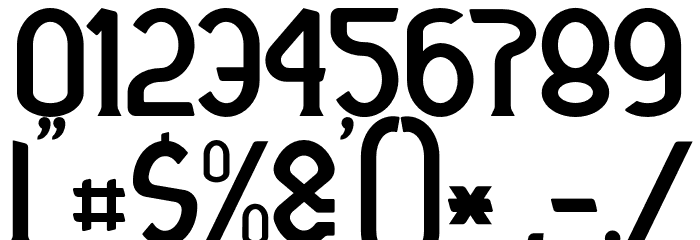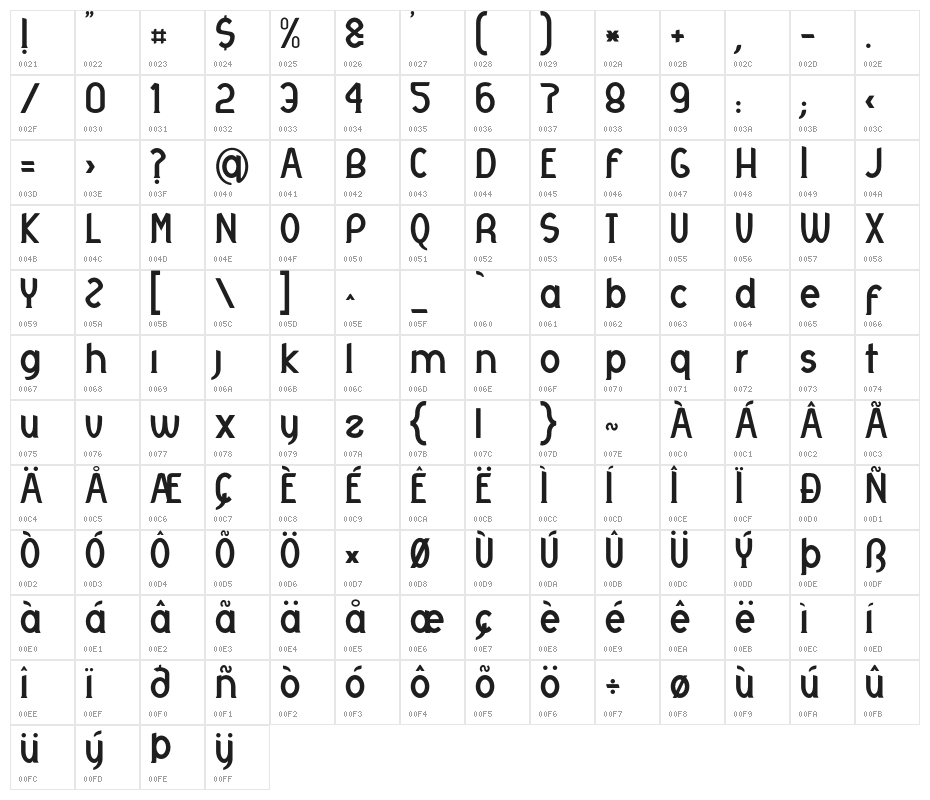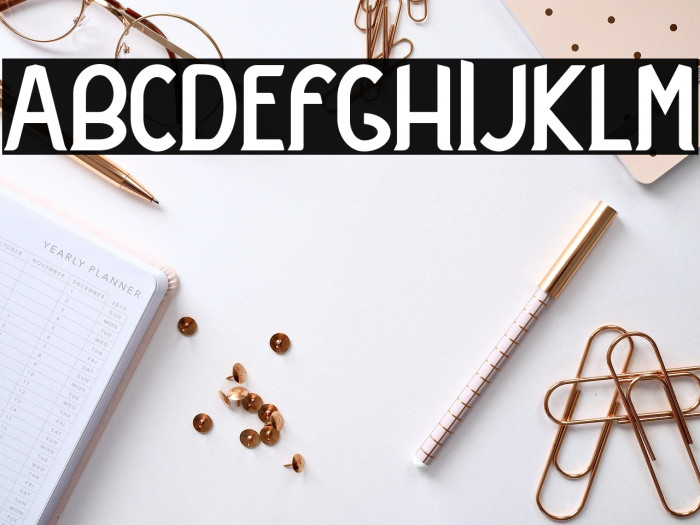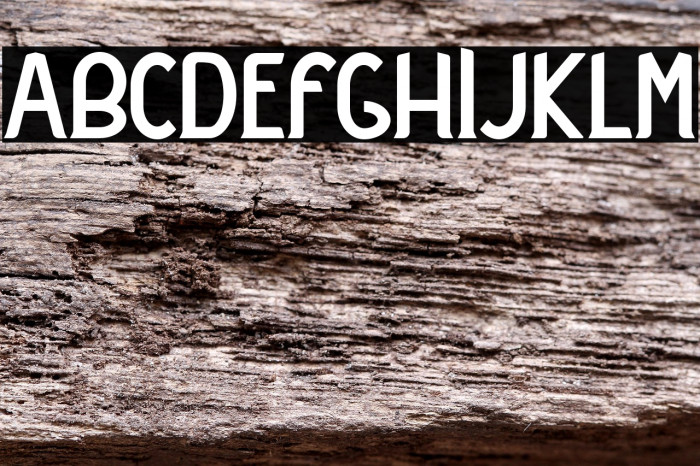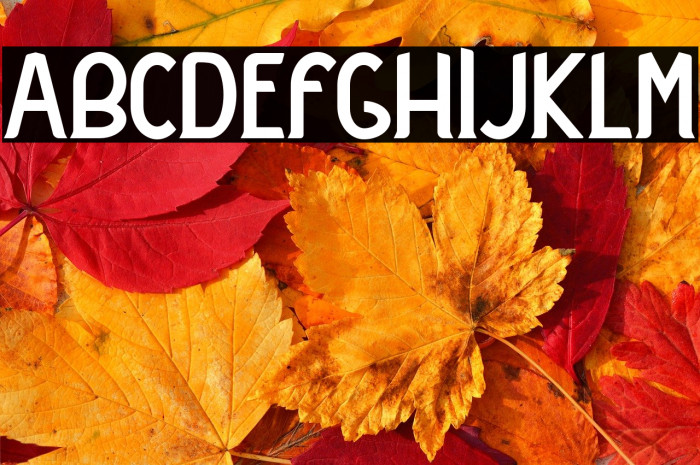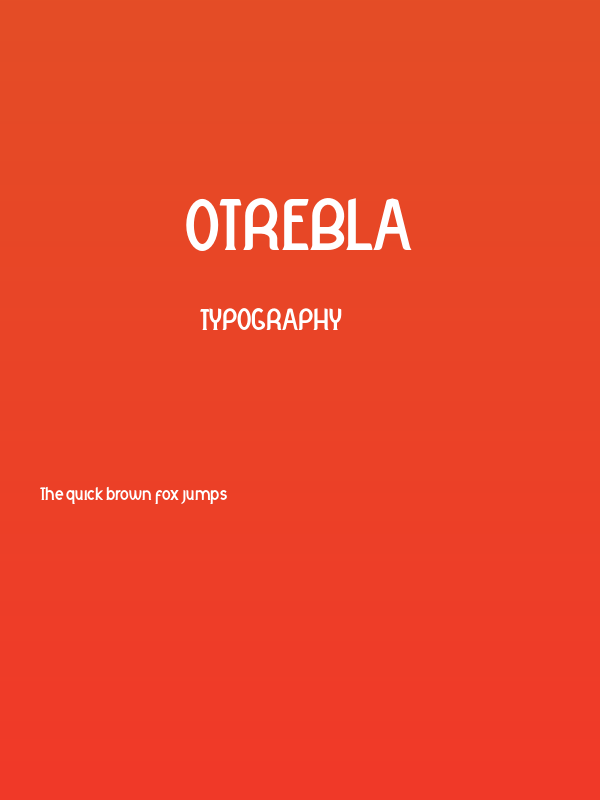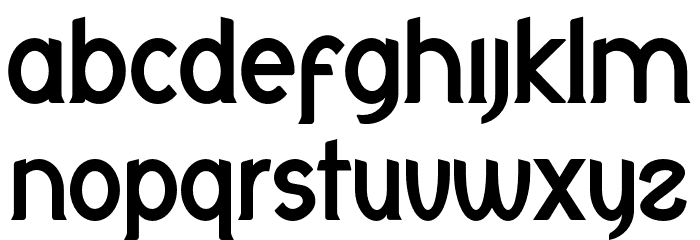
Otrebla Font
Otrebla Description
This font features a unique and modern design with a playful twist. The uppercase letters have a distinct curvature, particularly noticeable in characters like 'S' and 'G', which adds a dynamic flow to the text. The lowercase letters maintain a consistent style, with rounded edges and a slightly condensed form. The numerals are bold and clear, making them highly legible. Special characters are creatively designed, with the ampersand and percentage symbols standing out due to their artistic flair. Overall, this font combines readability with a touch of whimsy, making it suitable for various creative applications.